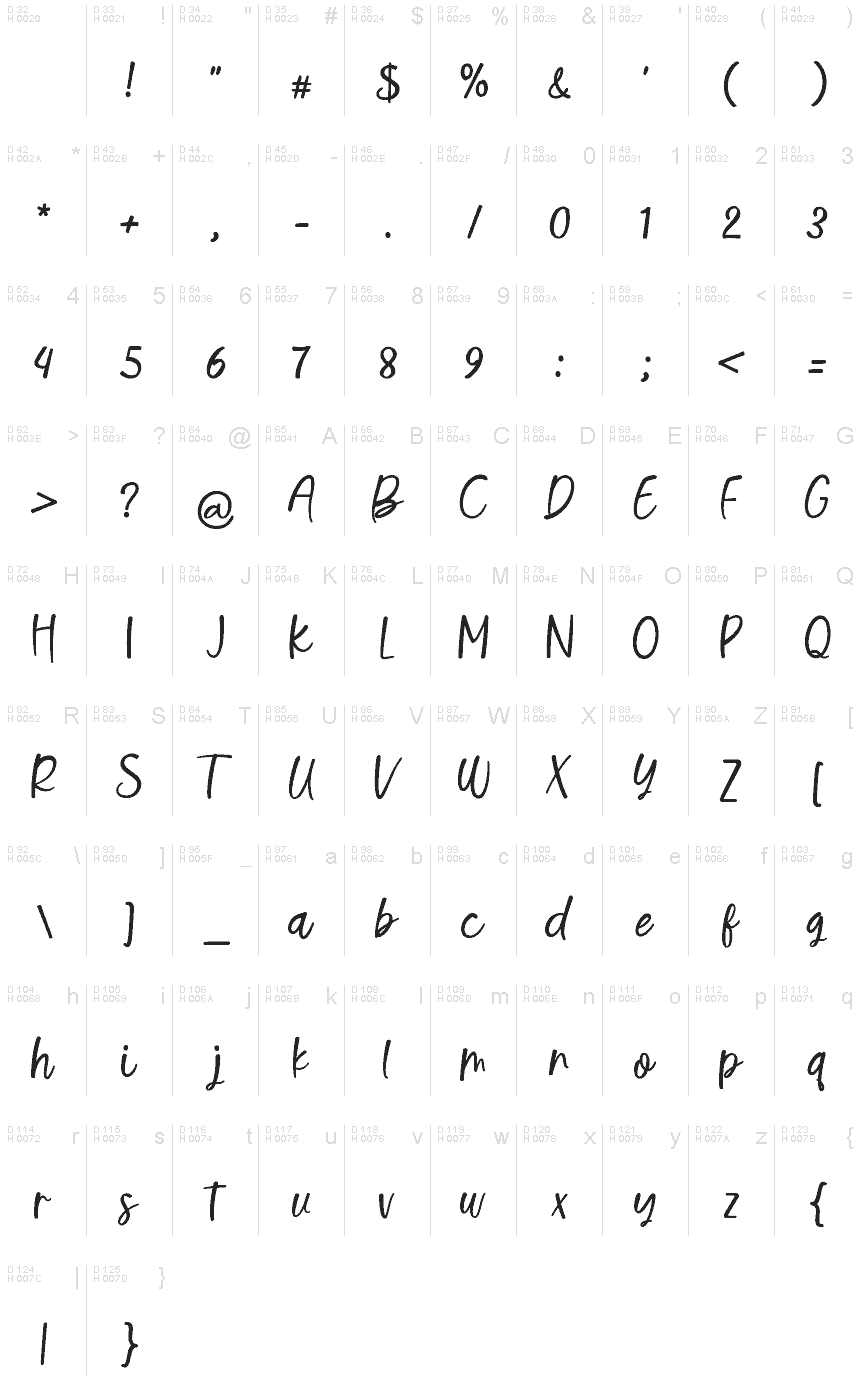
FrostImperial
Frost Imperial font by UI Creative is a handwritten font with a casual script style which gives it an expressive flair. It has a modern appearance that is also relaxed and extremely appealing. The letters are full of simplicity, elegance, and charm which make the whole typeface readable and engaging for audiences.
Some ideas for this free handwritten font’s use include digital ads, print ads, posters, books/novels, headlines/titles/subtitles/quotes/paragraphs writing in magazines and newspapers. More applications are book covers design (stands out gaps), invitations envelopes design (addresses), brand name visuals in advertising images as well as business logo design work.